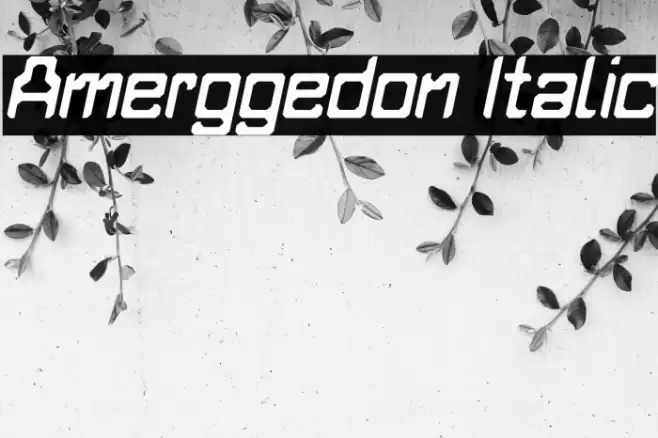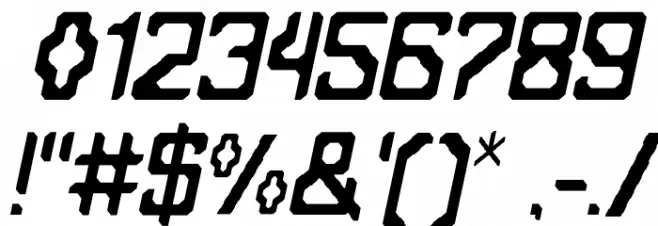
Amerggedon Italic Font
Amerggedon Italic Description
This font features a bold, italicized style with a futuristic and angular design. The characters are slightly slanted, giving a sense of motion and dynamism. The strokes are thick and consistent, providing a strong presence on the page. The uppercase and lowercase letters maintain a uniform style, with sharp edges and geometric shapes. The numbers and special characters follow the same design principles, ensuring cohesion across all elements. This font is ideal for projects that require a modern and edgy look.
A bold, italicized font with a futuristic and angular design from Uncategorized fonts.
- Proposed Projects: Ideal for sci-fi themed posters, video game titles, tech branding, and modern advertising.